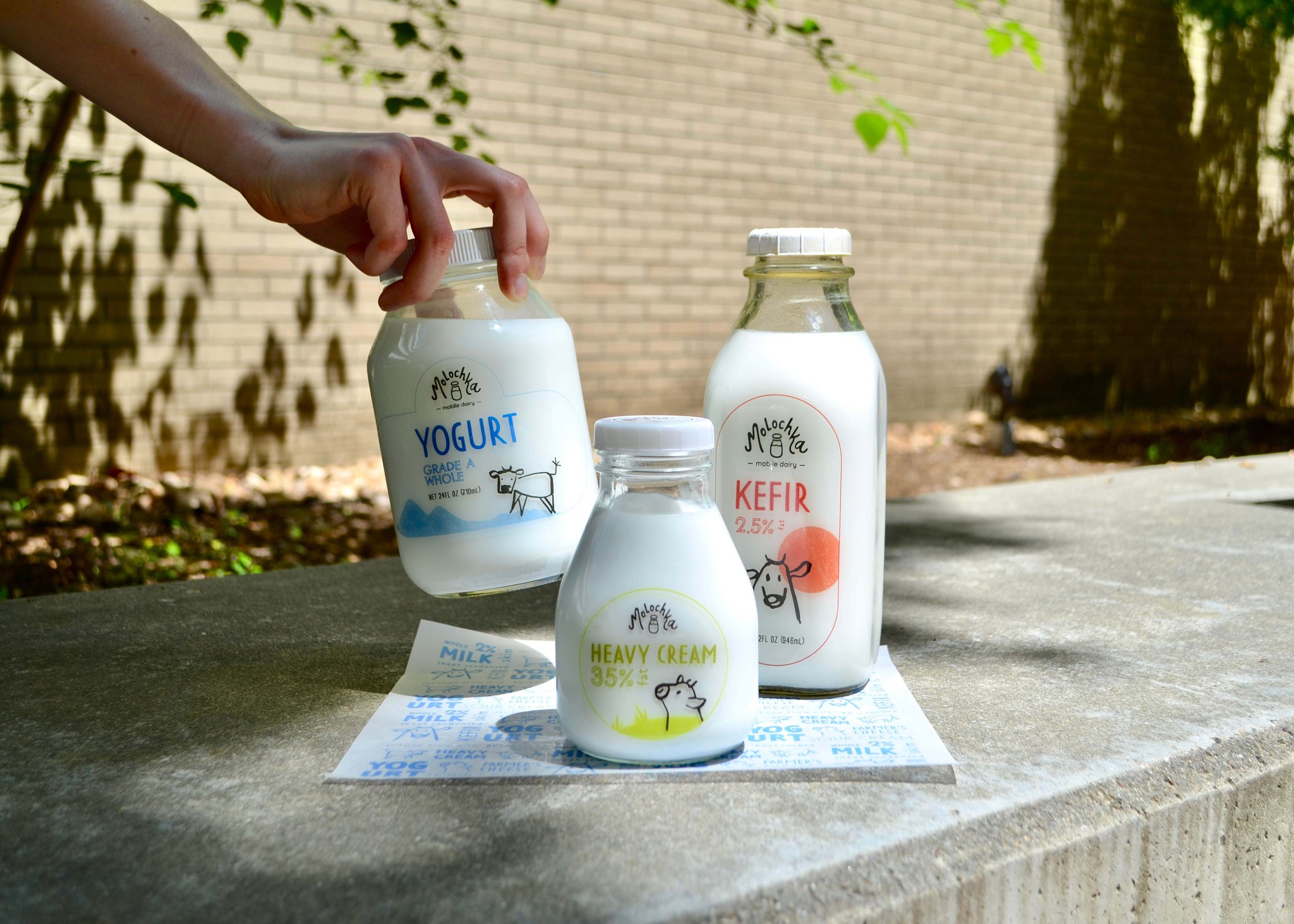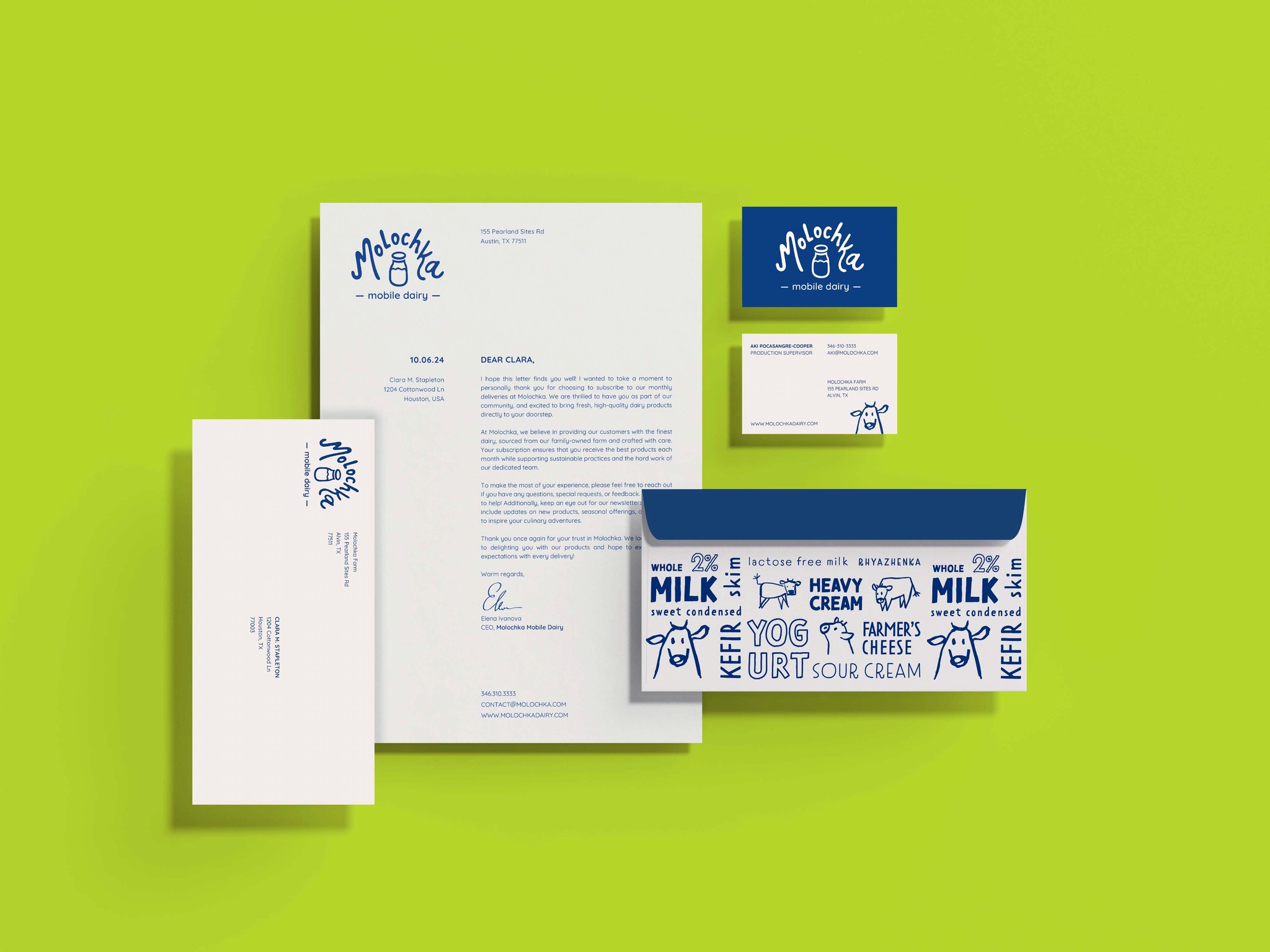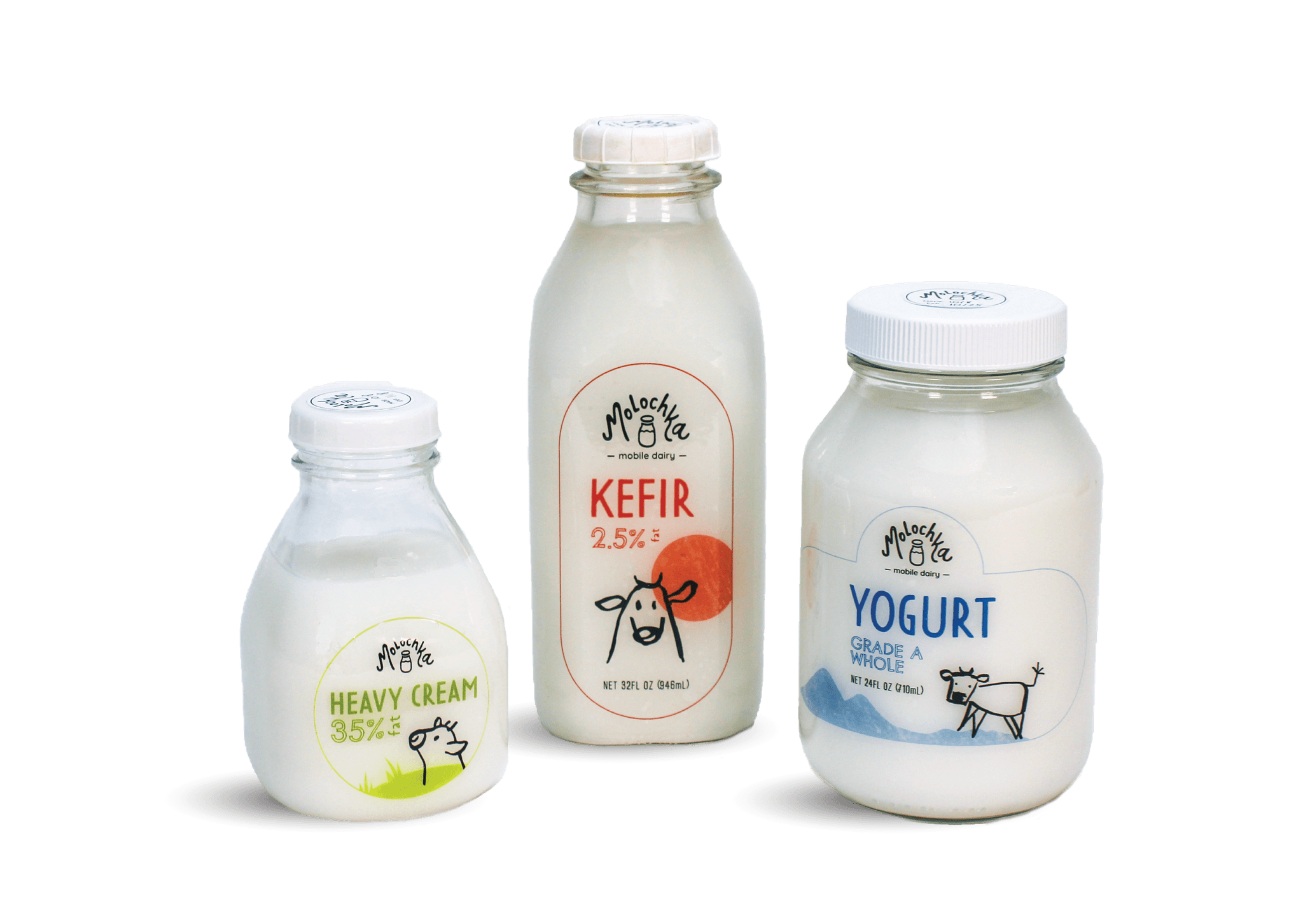
Molochka
Molochka is a business committed to delivering fresh high-quality dairy products to customers. The brand is dedicated to sustainability and seeks to appeal to all generations by being trustworthy, personable and authentic. The hand drawn illustration style, vibrant color palette and friendly typography reflect the brand’s lighthearted personality and reinforce its core values.